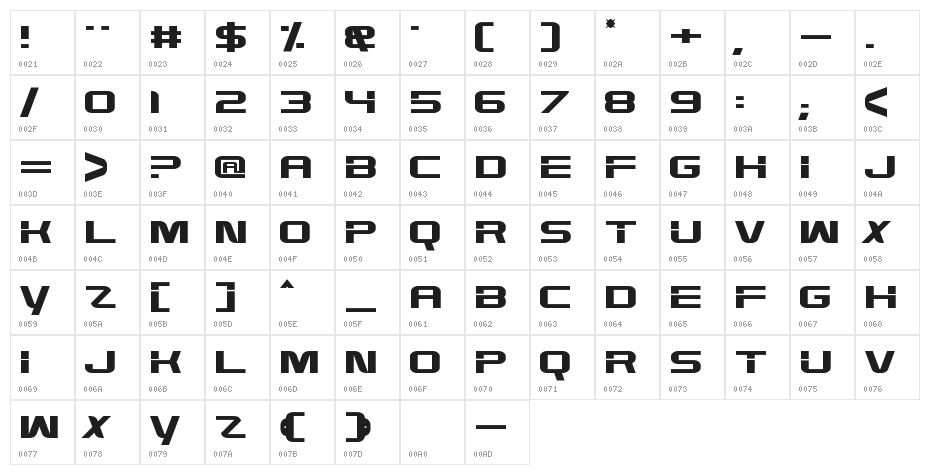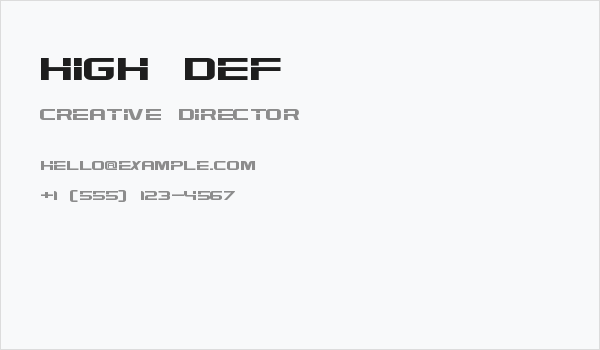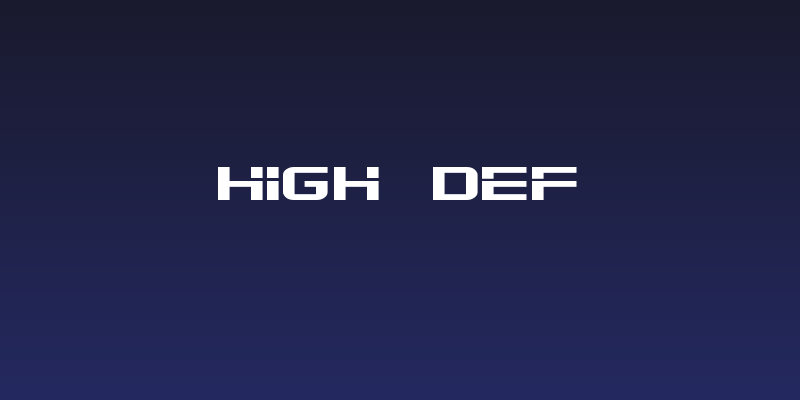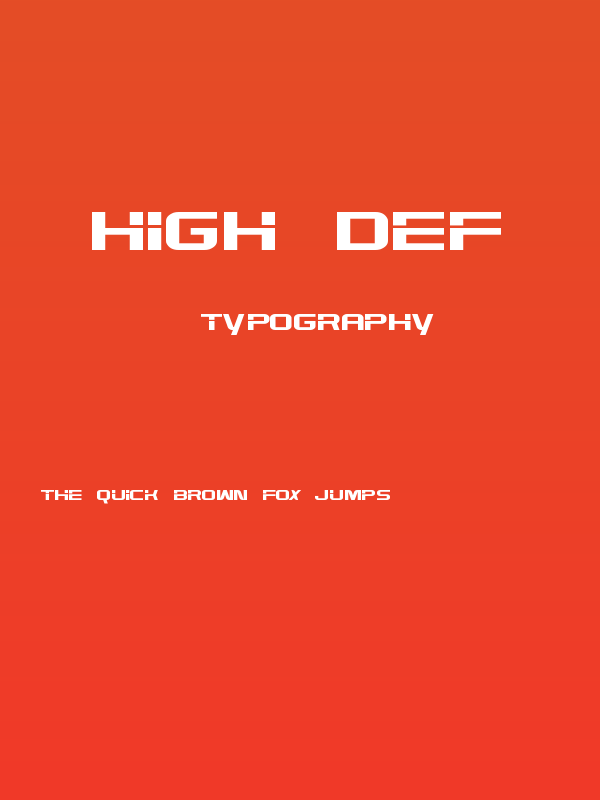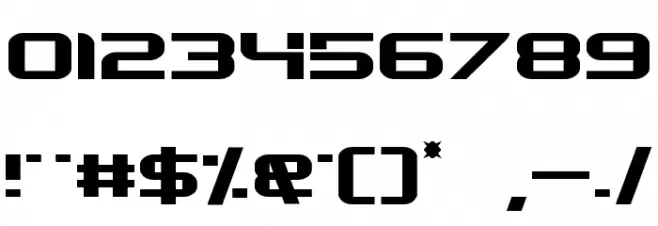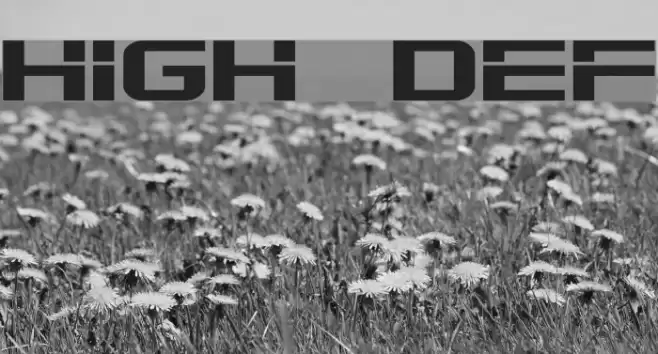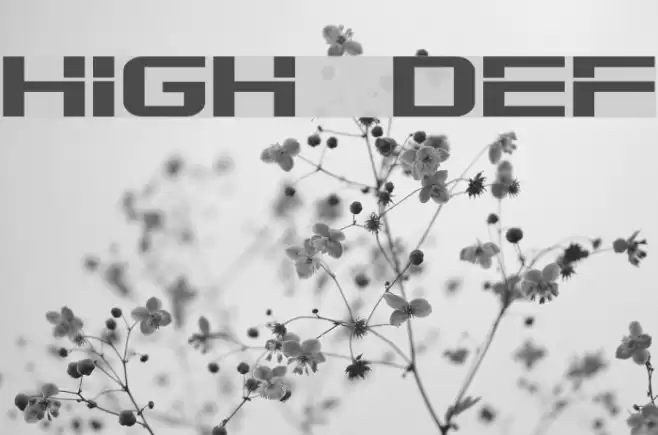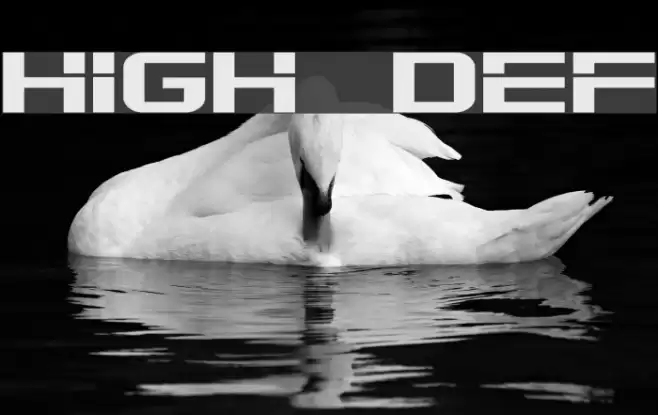
High Def Font
High Def Description
This font features a bold and modern design with a futuristic aesthetic. The characters are constructed with a geometric precision, showcasing a blend of sharp angles and smooth curves. The uppercase letters are uniform in height, while the lowercase letters maintain a consistent style, offering a cohesive look across the typeface. The numbers and special characters follow the same design principles, ensuring versatility in various applications. The font's distinct style is ideal for projects that require a contemporary and tech-savvy appearance.
| Proposed Projects | Ideal for technology branding, sci-fi movie posters, video game titles, and digital interfaces. |